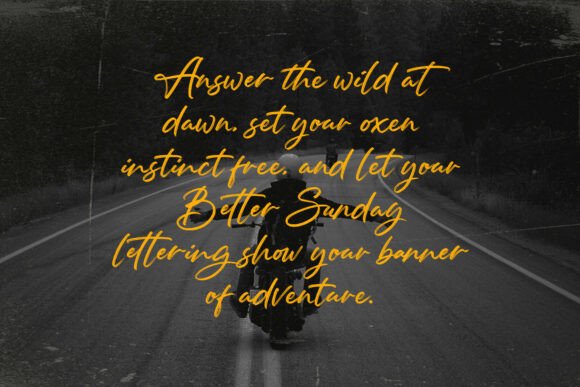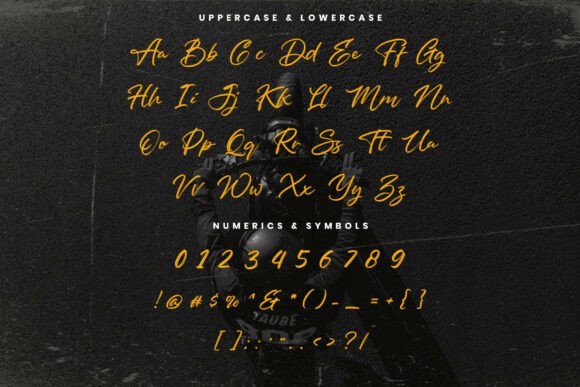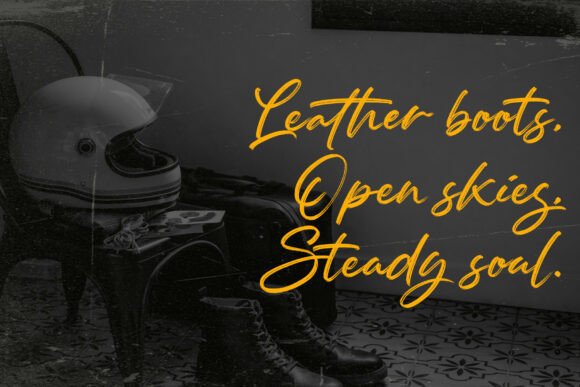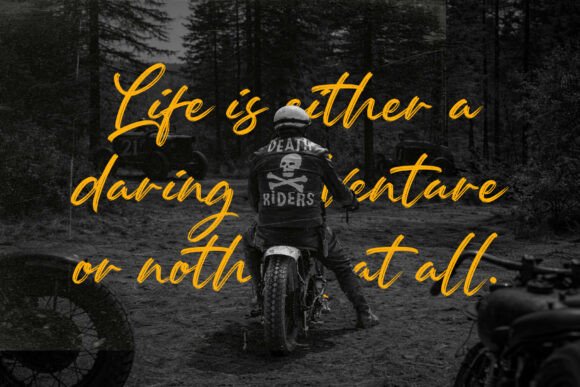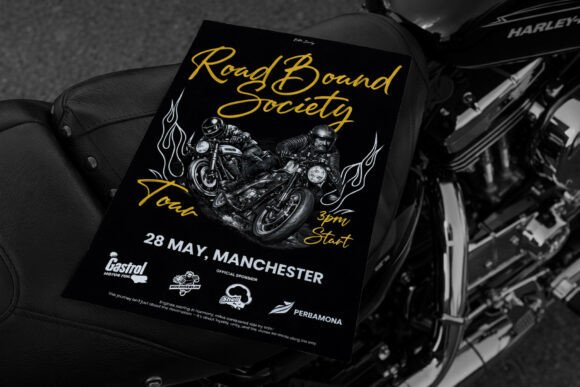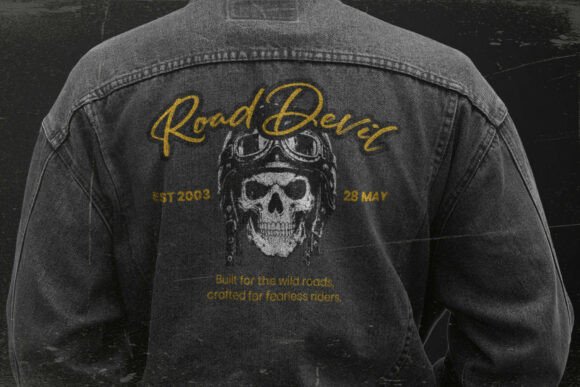
Get Ready to Ride with the Better Sunday Font
There’s something special about the feeling of freedom that comes with hitting the open road on a vintage motorcycle. The wind in your hair, the roar of the engine, and the thrill of the unknown – it’s a rush like no other. And when it comes to capturing that spirit in your design work, there’s a font that’s sure to get you revved up: the Better Sunday Font.
This bold brush script font is all about unleashing your creativity and expressing yourself with raw energy and unapologetic flair. With its textured brush details and natural hand-painted flow, the Better Sunday Font is perfect for designers who want to add a touch of rugged personality to their work. Whether you’re creating a bold editorial layout or a fearless streetwear statement, this font is sure to deliver – and that’s why it’s a must-have for any designer looking to take their typography to the next level.
Better Sunday Font Key Features
- Unique Characteristics: The Better Sunday Font features a modern, elegant design with subtle rounded edges, giving it a friendly and approachable feel.
Designer Review: Better Sunday Font
When I first laid eyes on the Better Sunday Font, I was immediately drawn to its whimsical and playful vibe. ✨ The combination of cursive and script elements creates a unique and eye-catching look that’s perfect for adding a touch of personality to your designs.
The font has a lot of charm and is sure to evoke feelings of warmth and comfort. The flowing lines and subtle flourishes make it a great choice for projects that require a sense of elegance and sophistication.
- Unique blend of cursive and script elements
- Perfect for adding a touch of personality to your designs
- Creates a sense of warmth and comfort
- May not be suitable for projects that require a more formal or professional tone
- Some characters may appear slightly irregular or inconsistent
- May not be as readable in smaller font sizes
Overall, I think the Better Sunday Font is a great choice for designers looking to add a touch of whimsy and personality to their projects. While it may have some limitations, its unique charm and eye-catching style make it a great addition to any design toolkit. ✨
Getting the Most Out of “Better Sunday Font”
For the best results, use “Better Sunday Font” in conjunction with a clear and simple design. The font is best suited for titles, headings, and short paragraphs. Experiment with different font sizes and colors to achieve the desired visual effect.
“Better Sunday Font” is ideal for:
- Event promotions and flyers
- Personalized greeting cards and gifts
- Brand identity and marketing materials